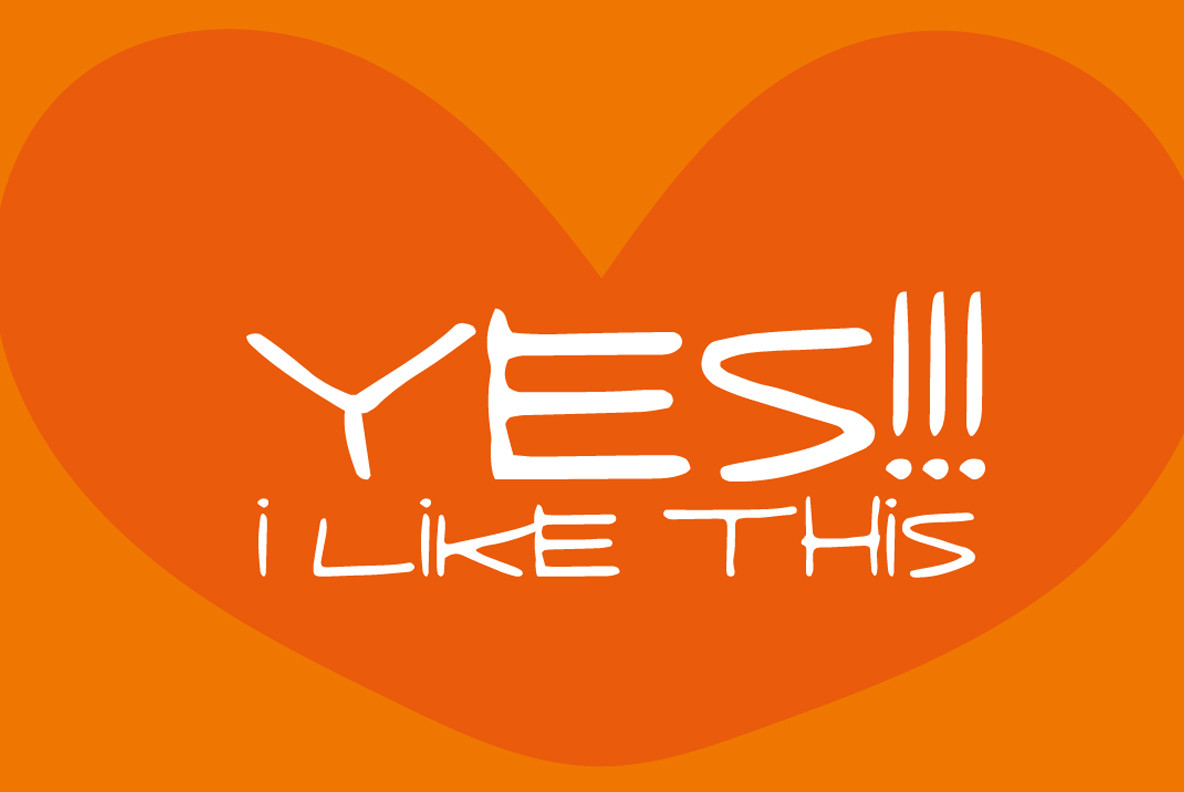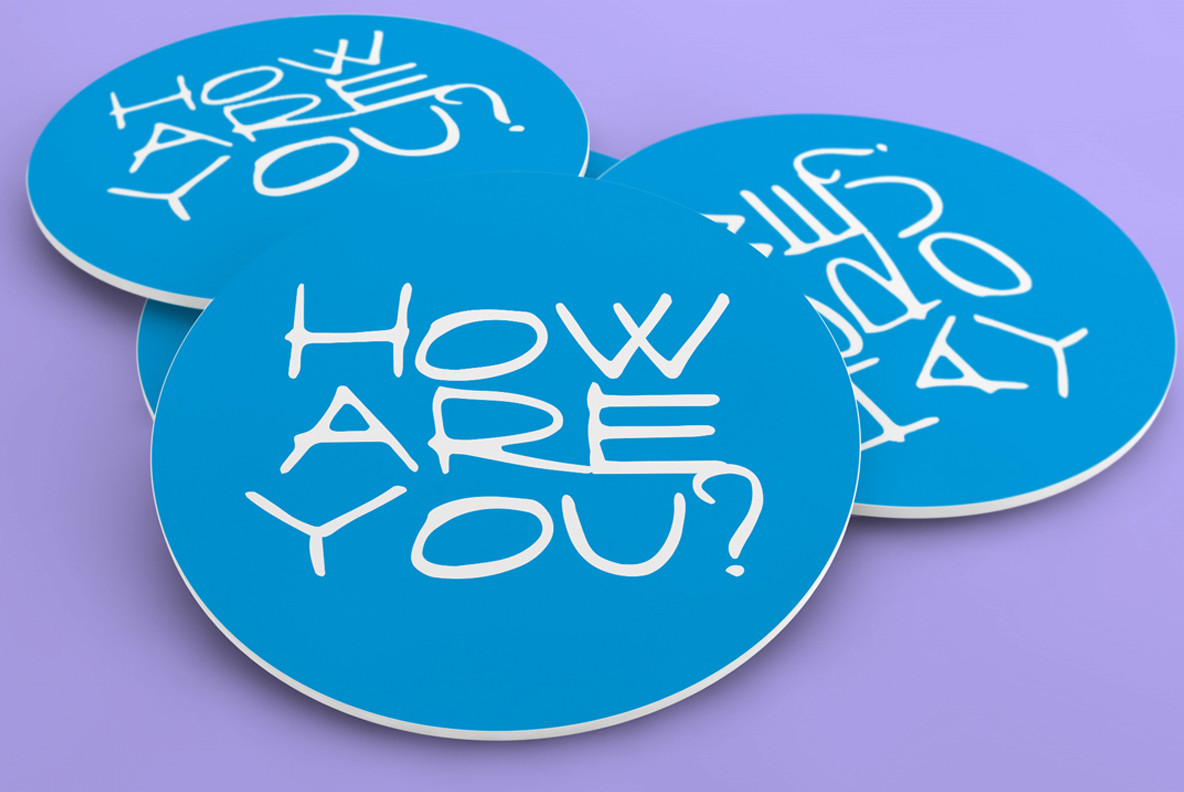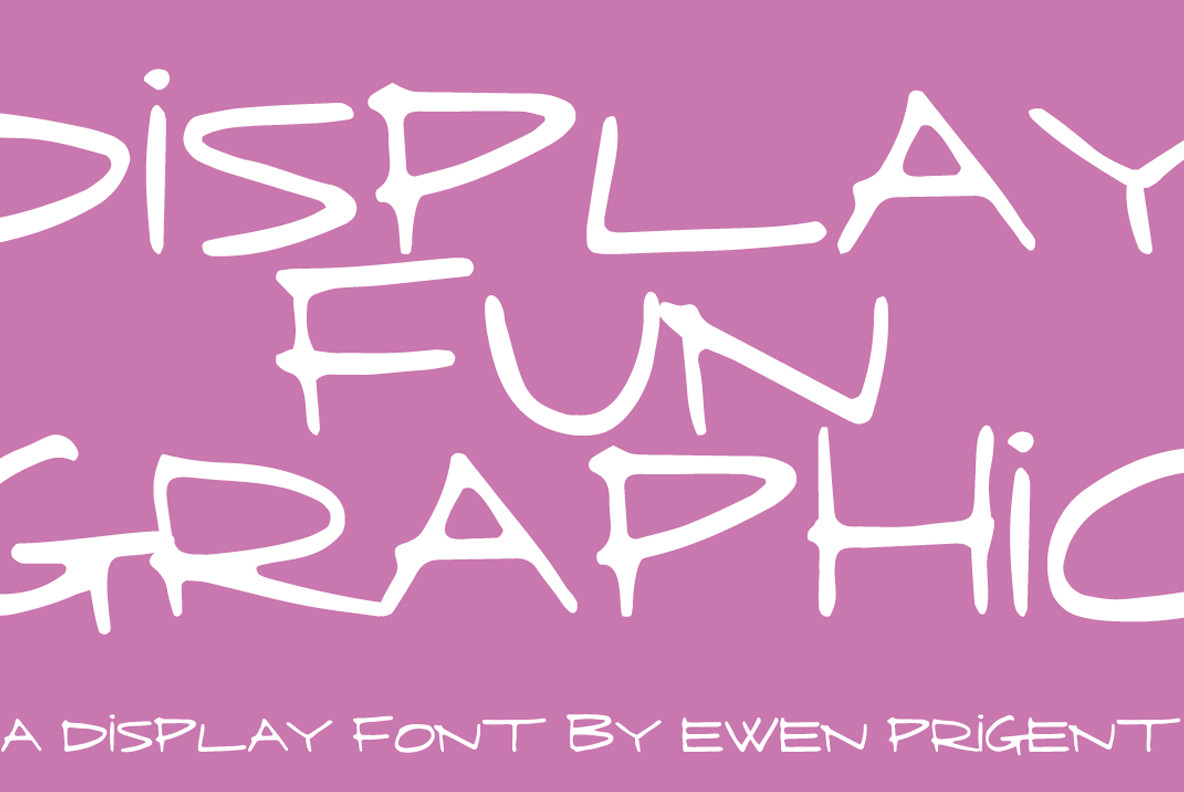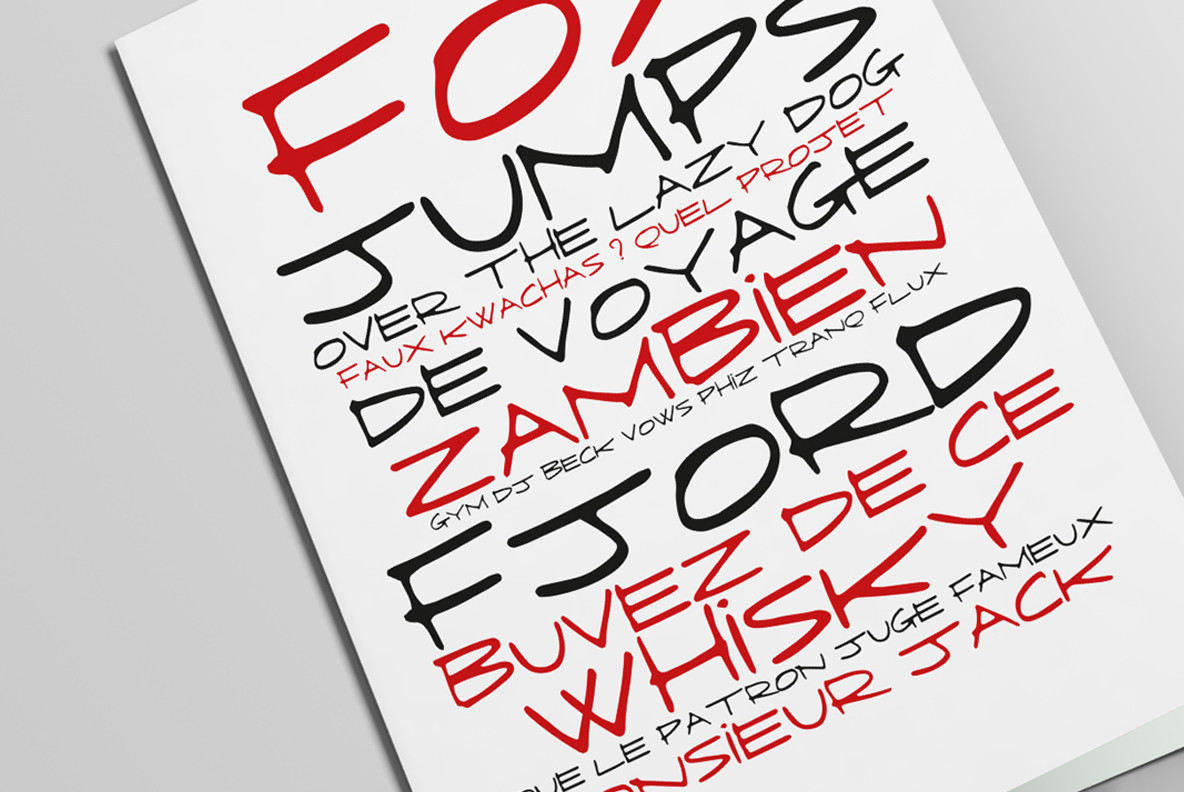
Fringe Font
Fringe Regular
Hand-printed caps design, ideal for your graphic design projects.
Born in 1980, Ewen Prigent exercises in Brest (France) the profession of independent designer since 2004 under the signature of La Boîte Graphique after completing his studies at the University of Fine Arts of Rennes 2. he creates fonts "fanciful" titration since 2008.